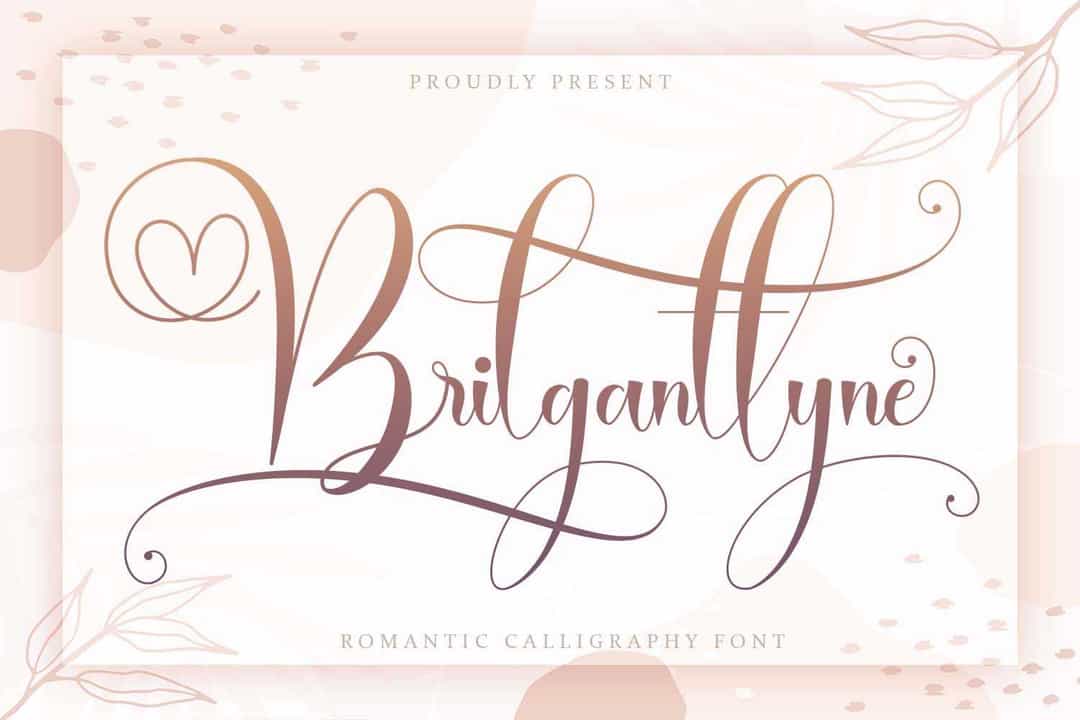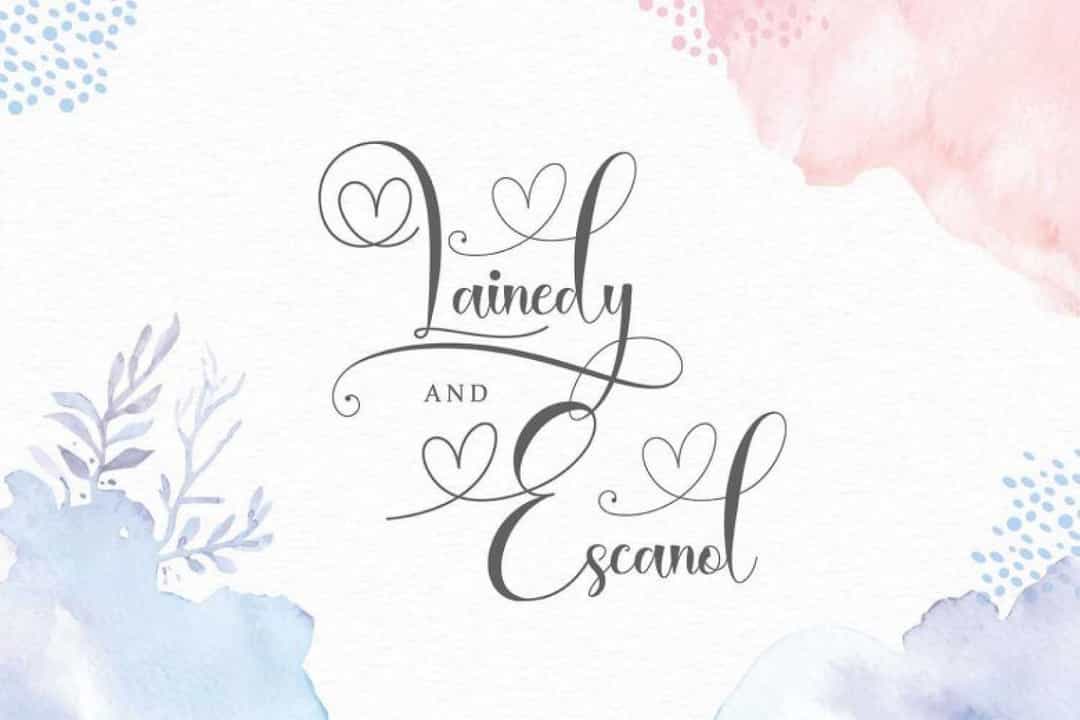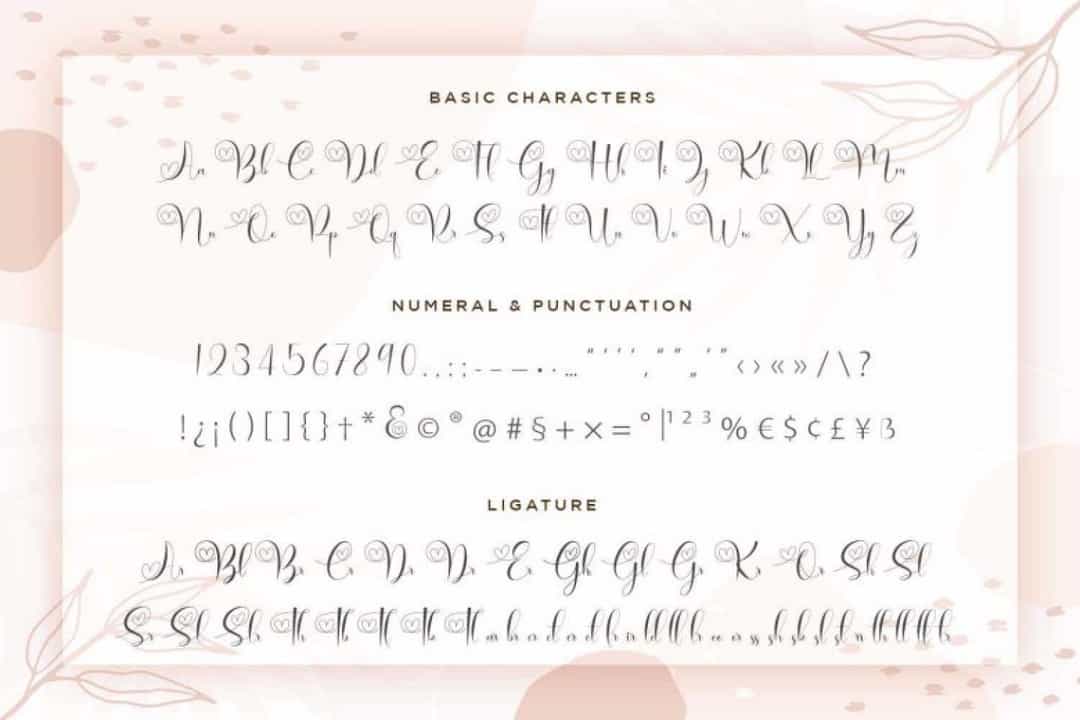
Brilganttyne is an elegant script typeface for calligraphy is suitable for a variety of projects, including branding, homeware designs, packaging for products cups posters, quotes bags for shopping, t-shirts, books, name cards greeting cards, invitation cards, labels photographs, watermarks as well as special events and any other projects that require gorgeous calligraphy flair.